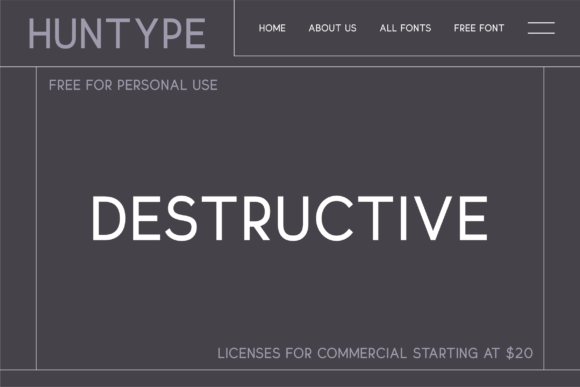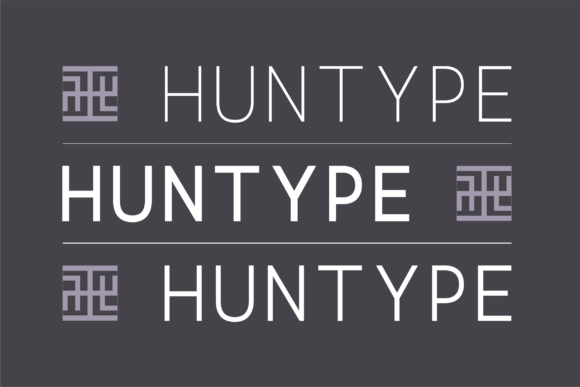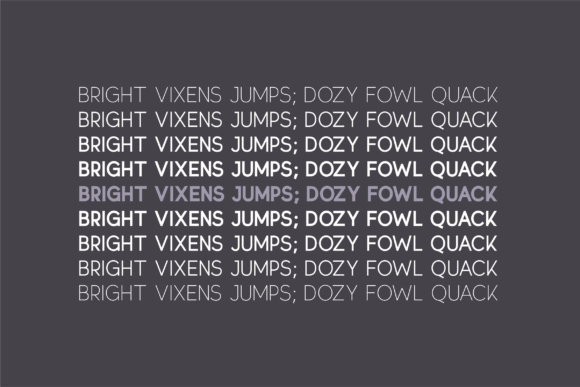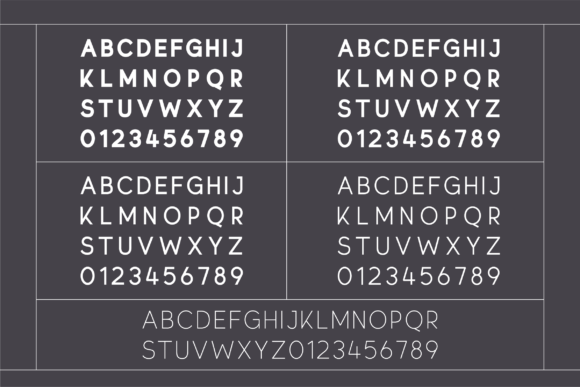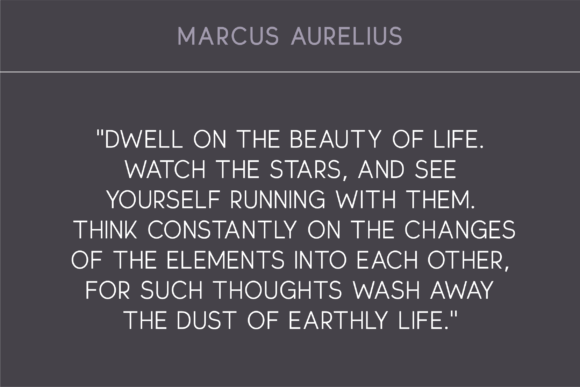
Introduction to Destructive Font
Introducing Destructive, a stunning sans serif typeface that harmoniously blends unparalleled readability with a sleek, modernist design.
This dynamic font family consists of five distinct weights, ranging from the delicate intricacy of Thin to the bold intensity of Black Explore the versatility of Destructive and experience the transformative power it can add to your design concepts.
Key Features of Destructive Font